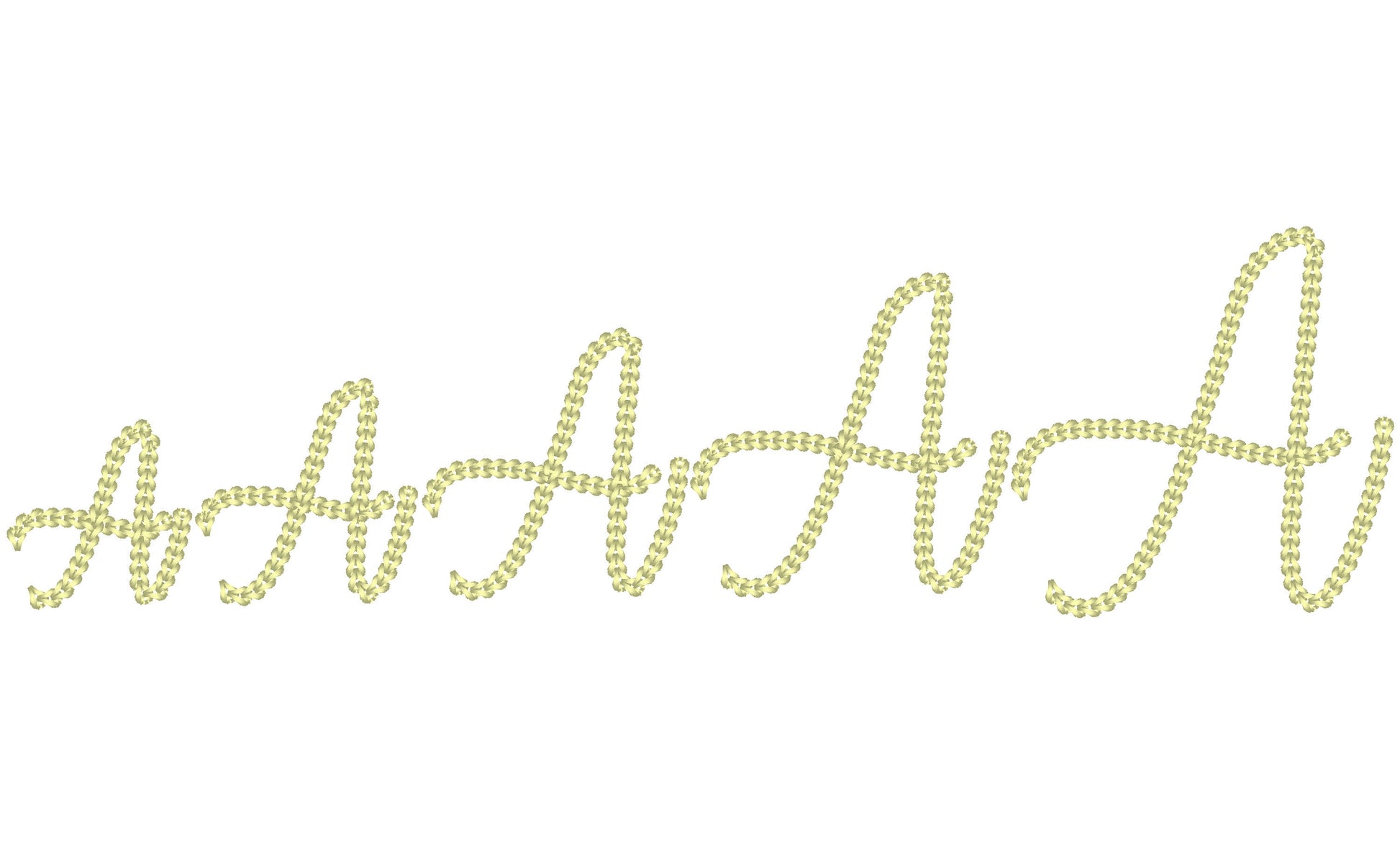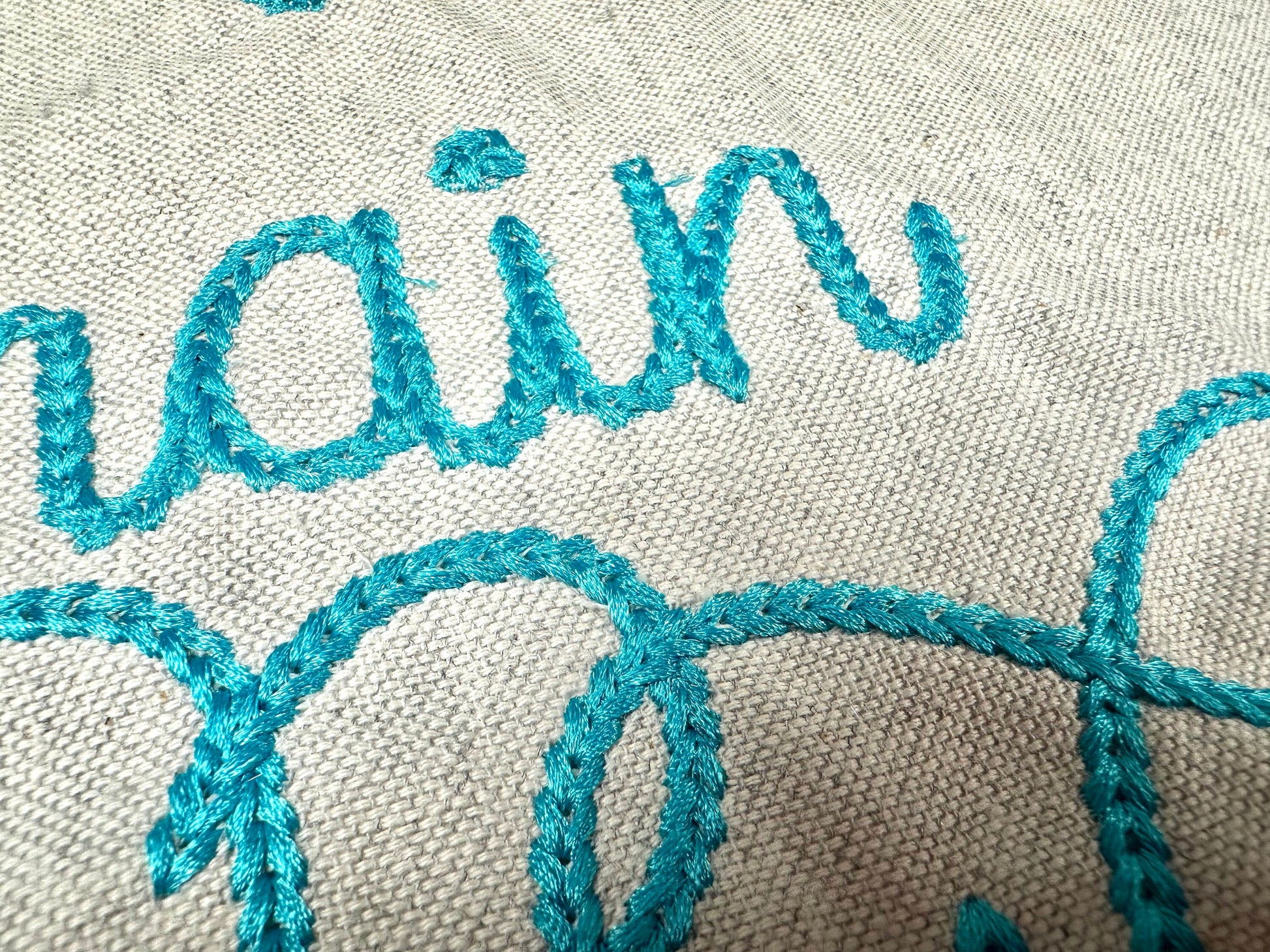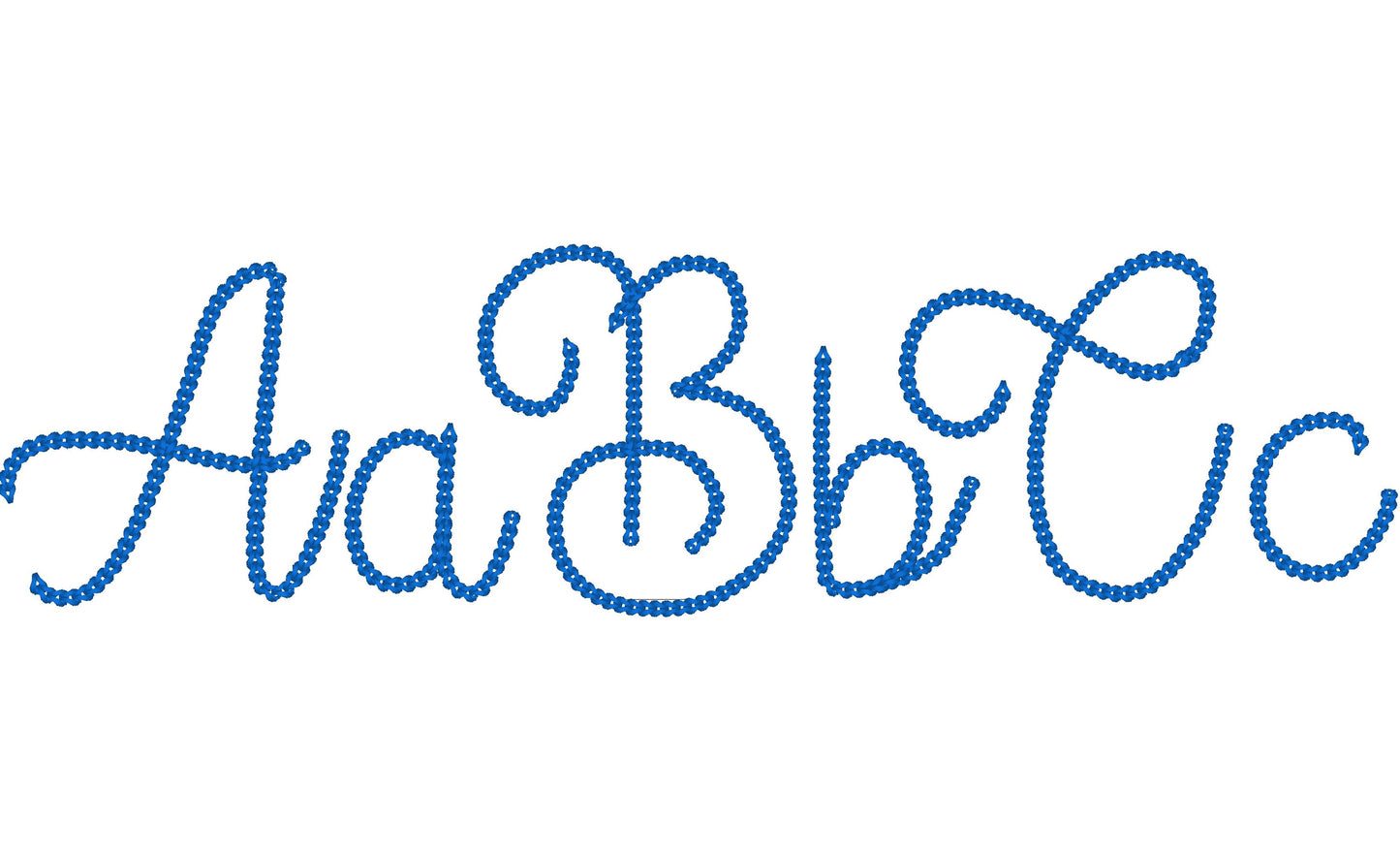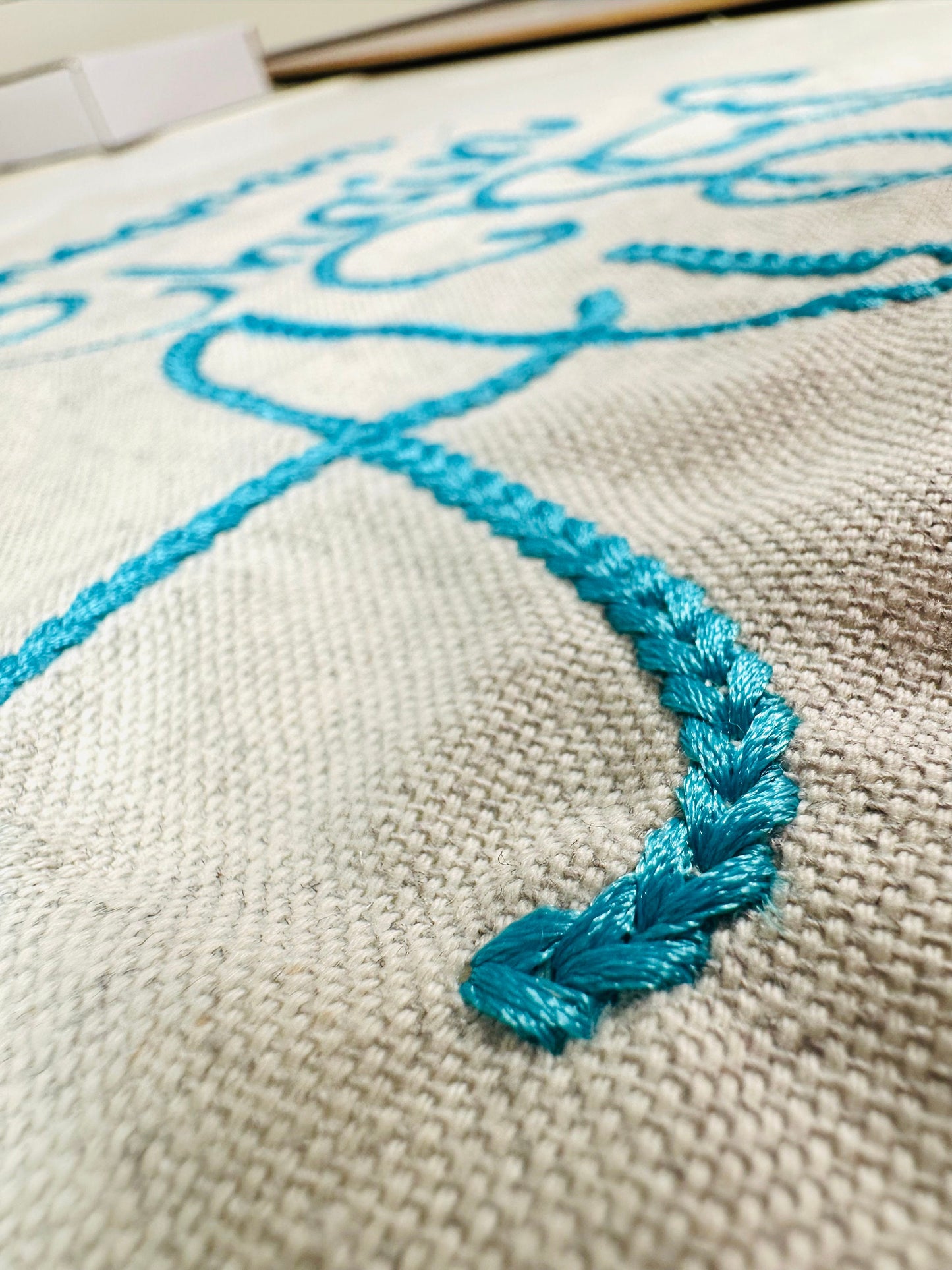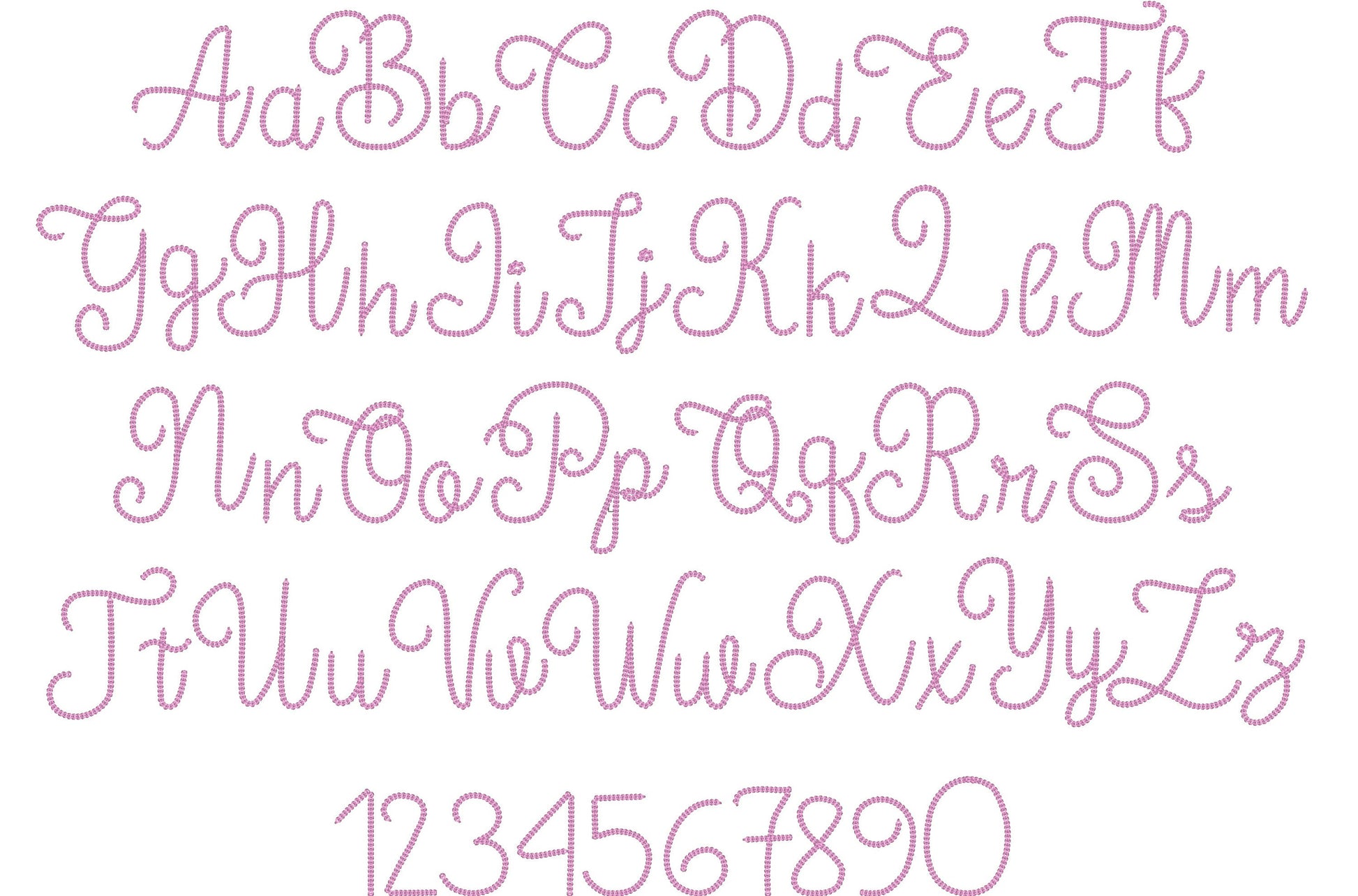
Bold Dense Chain Stitch Handwritten Font
Or click to open the linkA bold, dense chain stitch font with a handmade knit sweater look. Great for names on sweatshirts, beanies and blankets.
Uppercase and lowercase letters and numbers 0 to 9, in five sizes: 1.8, 2.2, 2.7, 3.2 and 3.8 inches.
- Bold chain stitch font, uppercase and lowercase
- Numbers 0 to 9
- 5 sizes, 1.8 to 3.8 in